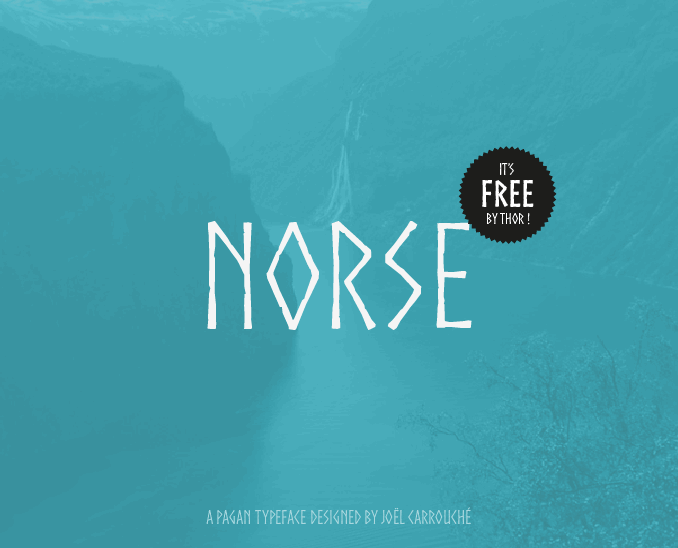
Free Norse Font
We're glad to feature this eye-watering free norse font. Font Space has created this amazing and beautiful typeface. This is absolutely fancy font so you can easily make world-class designs.